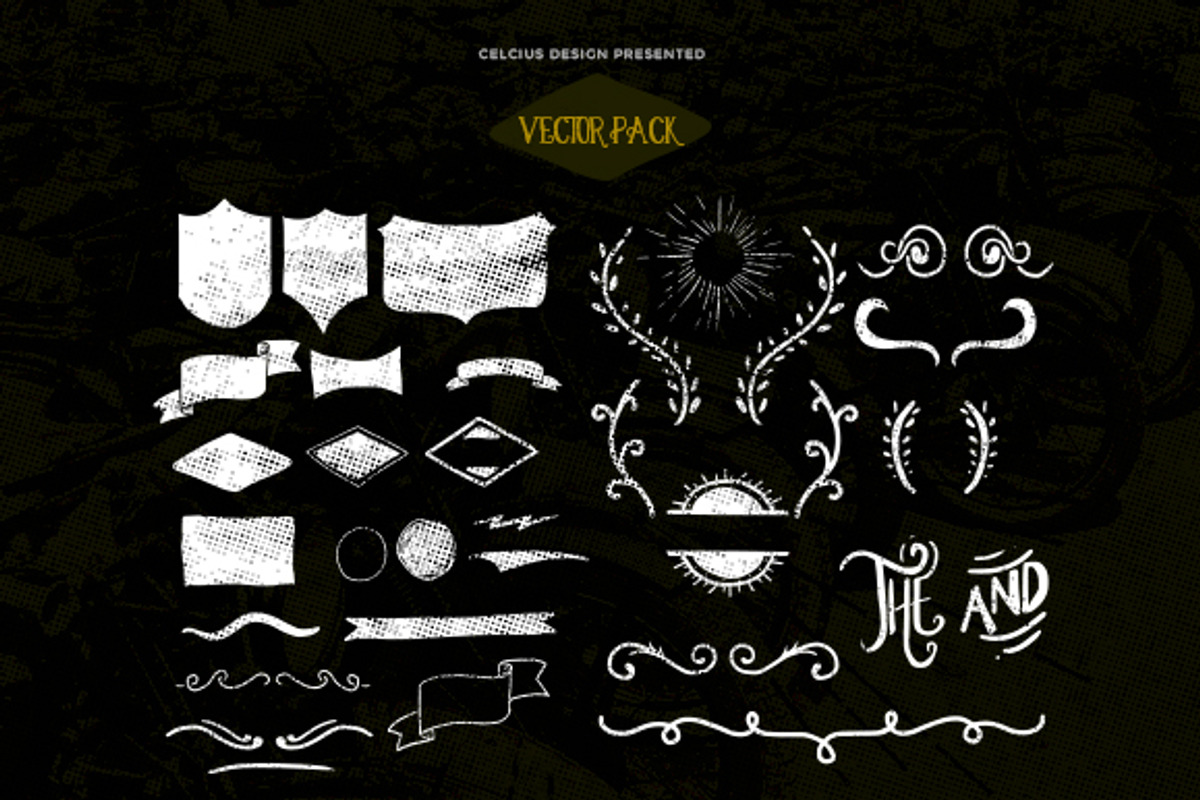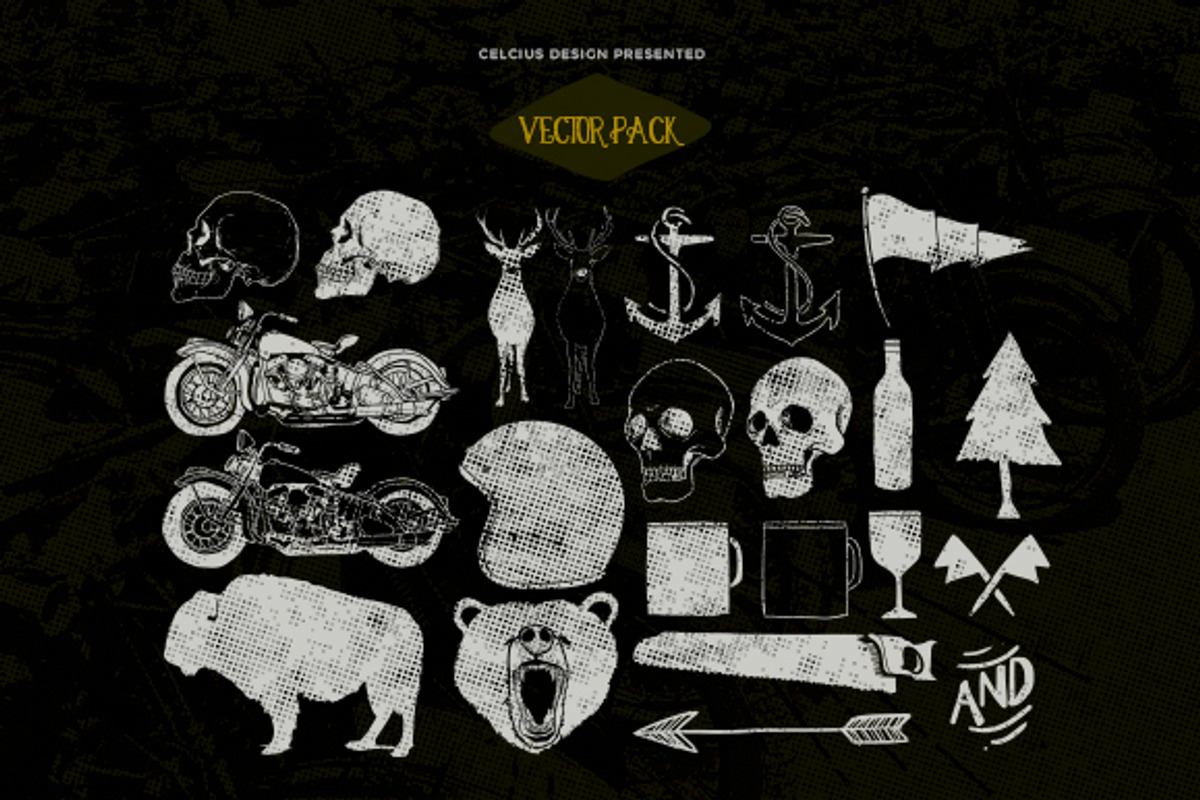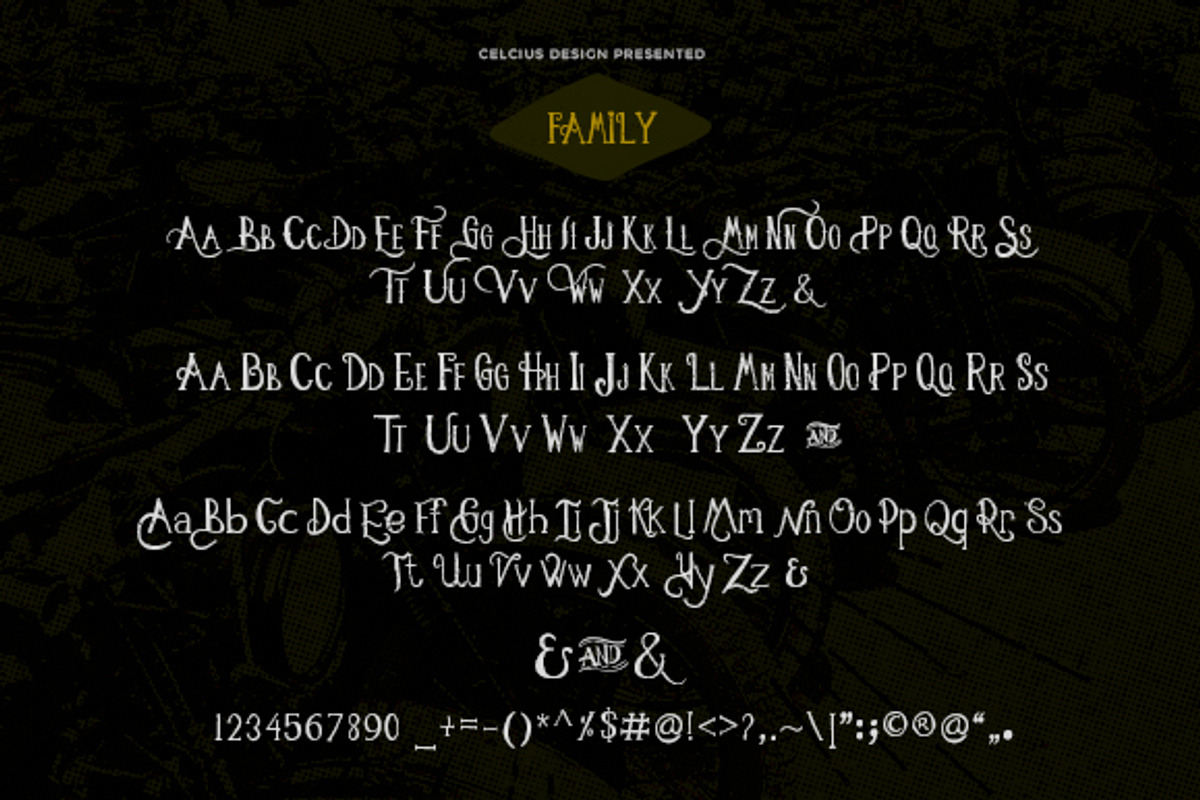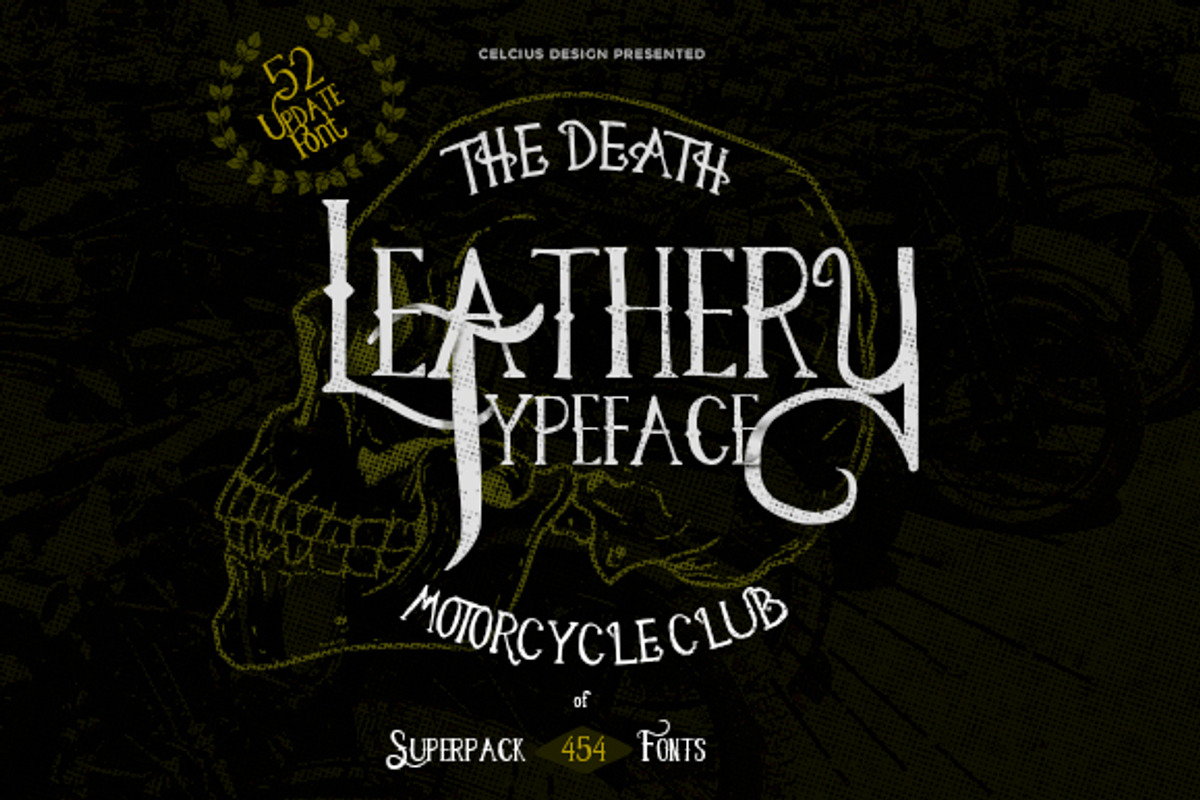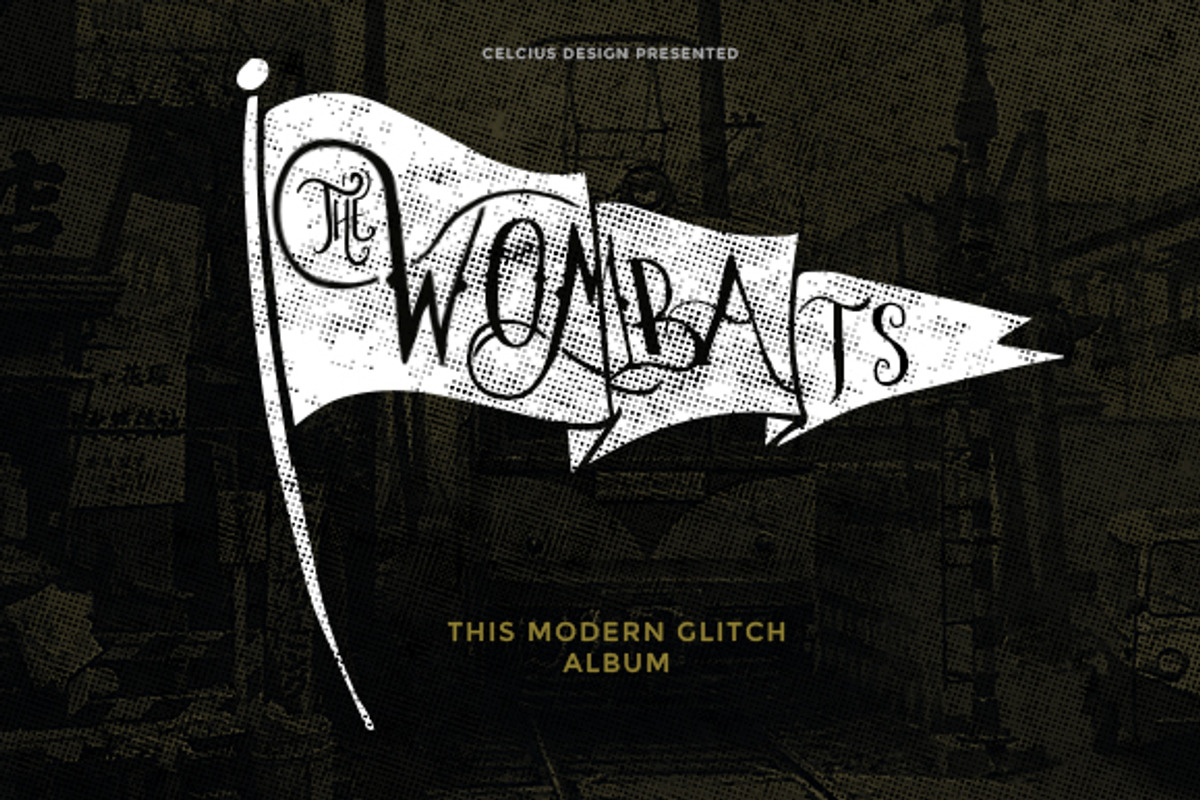
Leathery Typeface
Update : added Handdraw 52 dingbat fonts
Leathery typeface bundle is handmade vintage font with unique character, with 3 different fonts (smallcaps, uppercase and capslock ttf and otf format) with total 402 glyphs you could make a different display. Inspired with wild, sharp, motorcycle, skull, animal, started with this concept.
So many vector pack i drawed with total 50 original shapes and object, with the details, you should uses to lable, t-shirt, badge, or anything need. Show your emotion in here